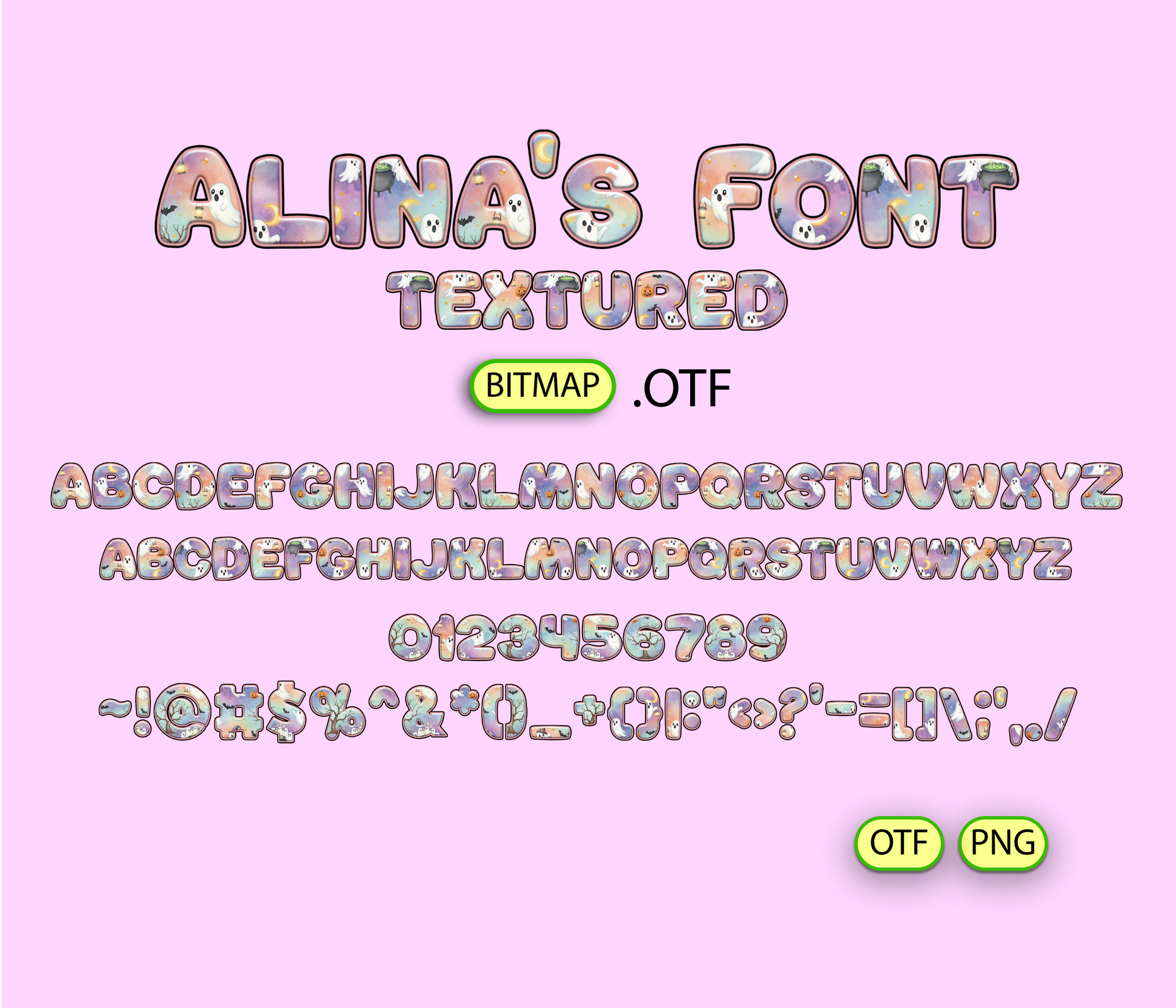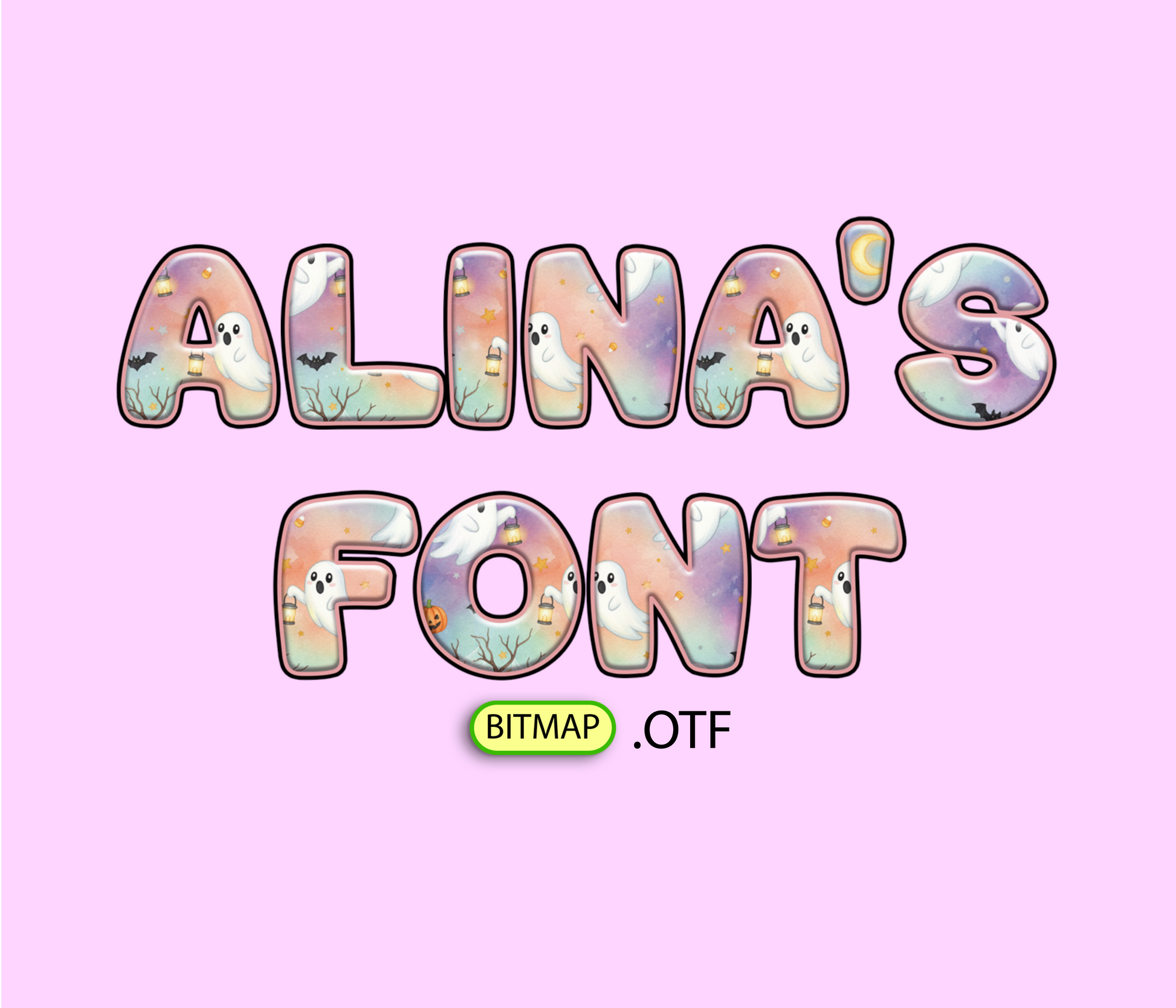
Friendly Spirits Pattern Font
Step into the charming world of adorable autumn specters with our Friendly Spirits Pattern font, capturing the essence of sweet ghosts and cozy celebrations. Perfect for Halloween fans, crafters, event organizers, and designers, this font brings the delightful, whimsical spirit of gentle haunting to your projects. Create heartwarming materials, merchandise, or digital content with the cheerful energy of lovable phantoms.
Our Friendly Spirits Pattern font features soft, playful lines and warm-toned characters reflecting the world of adorable specters. Ideal for:
- Event Promotions: Create inviting invites, posters, and banners for family-friendly Halloween parties, autumn festivals, and trick-or-treat gatherings that capture the spirit of sweet celebrations
- Merchandise Design: Perfect for t-shirts, posters, and accessories that showcase the charming aesthetic of friendly ghosts and cozy autumn vibes
- Digital Media: Enhance websites, blogs, and social media with whimsical headers and graphics that express the warmth of gentle haunting
- Seasonal Content: Add authentic flair to children's projects, autumn crafts, and creative designs inspired by adorable spooky tales
- Personal Projects: Bring heartwarming joy to scrapbooking, DIY crafts, and home decor inspired by the world of lovable phantoms
Our font pays tribute to the iconic world of charming Halloween celebrations, empowering your designs with its whimsical and warm spirit. Whether crafting promotional materials, designing merchandise, or adding a delightful touch to personal projects, this font communicates the sweet essence of friendly ghosts. Ready to inject cozy autumn magic into your creations? This font is your key to exciting, impactful design.